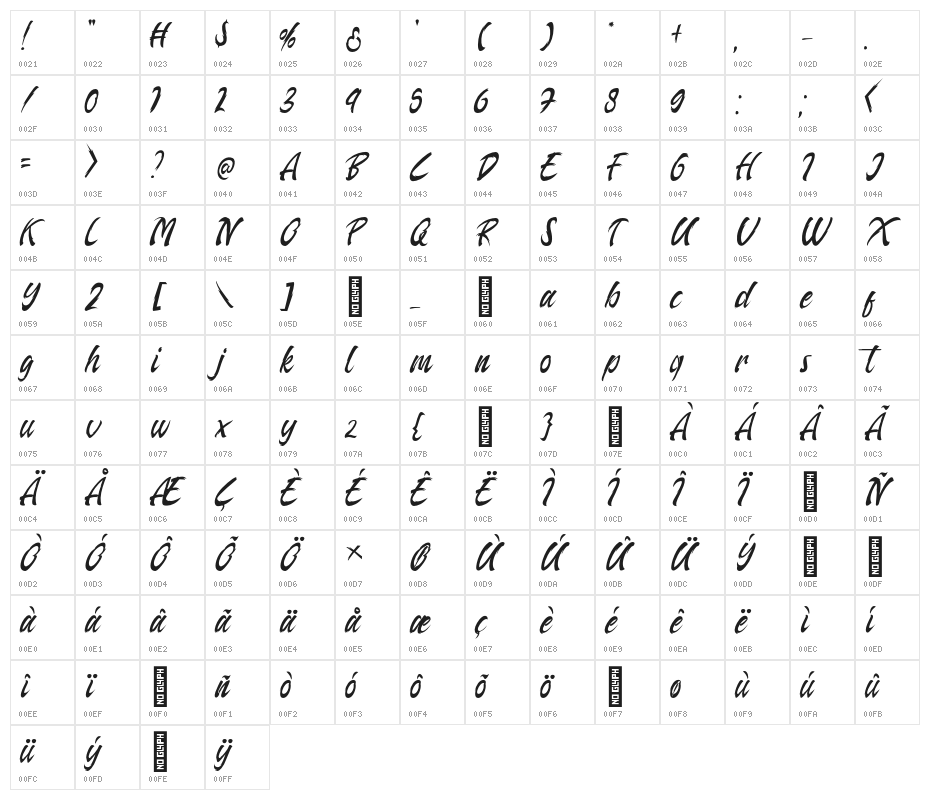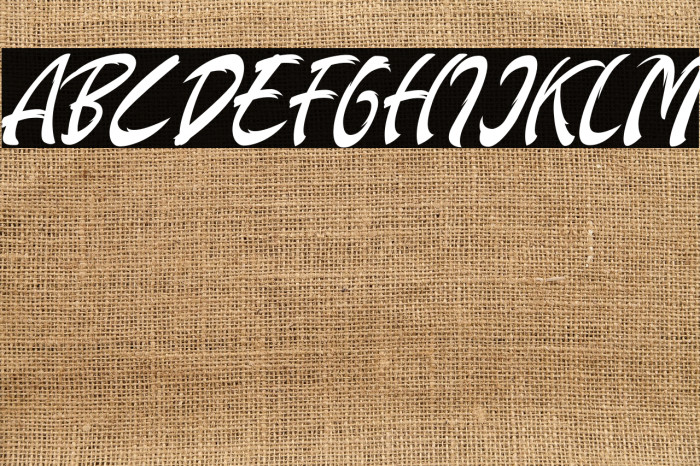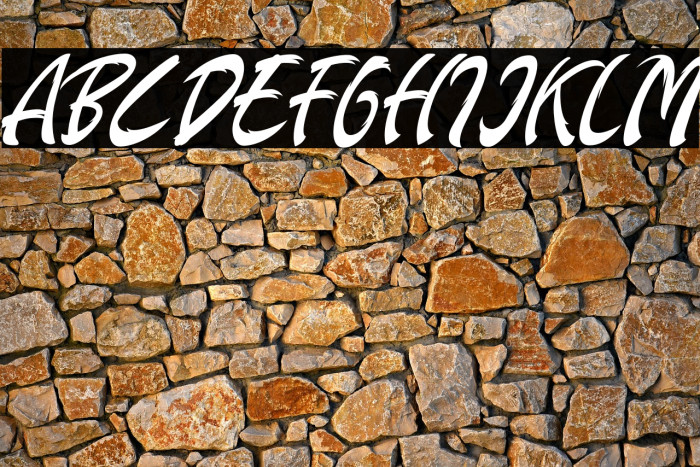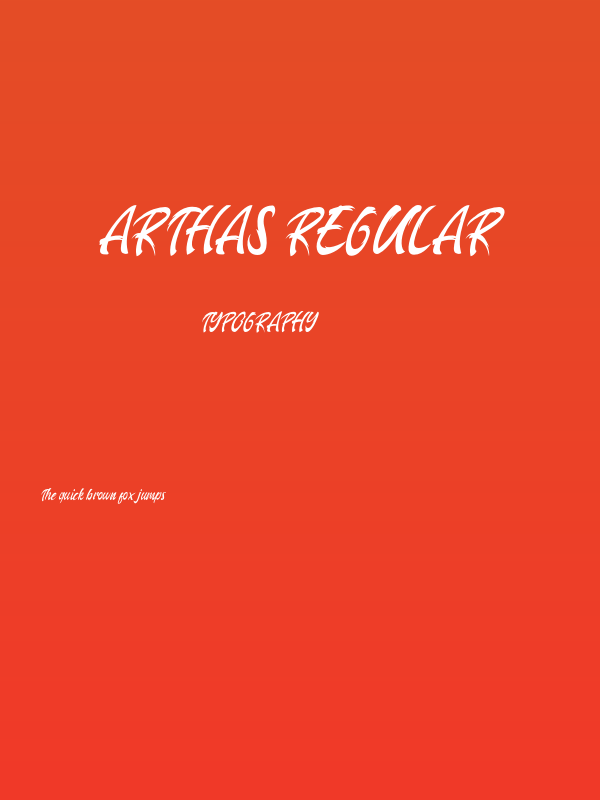
Arthas Regular Font
Arthas Regular Description
This font features a bold and expressive script style with a strong calligraphic influence. The letters are fluid and dynamic, with sweeping curves and varying stroke widths that create a sense of motion and elegance. The uppercase letters are particularly striking, with exaggerated flourishes and a sense of grandeur. The lowercase letters maintain the same fluidity, offering a cohesive look across the alphabet. Numbers and special characters are designed to match the overall style, ensuring consistency throughout. This font is ideal for projects that require a touch of sophistication and artistic flair.
| Proposed Projects | Ideal for branding, invitations, greeting cards, and artistic projects requiring a sophisticated touch. |